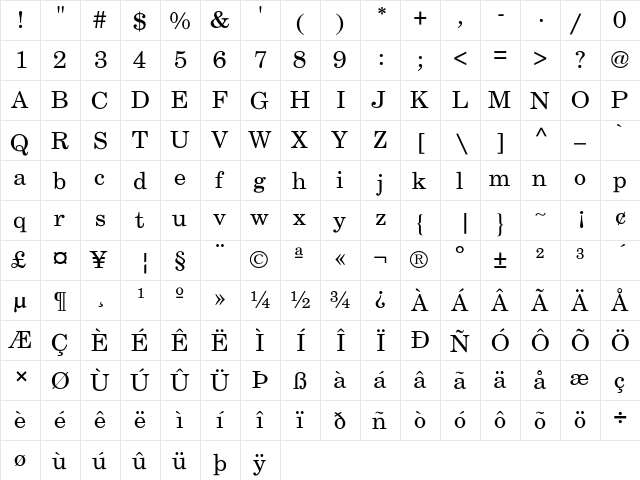
NewCenturySchlbk-Normal Regular
Design Context for NewCenturySchlbk-Normal Typeface
NewCenturySchlbk-Normal takes a measured approach to typography — its balanced proportions and neutral character make it a reliable workhorse for both digital and print work.